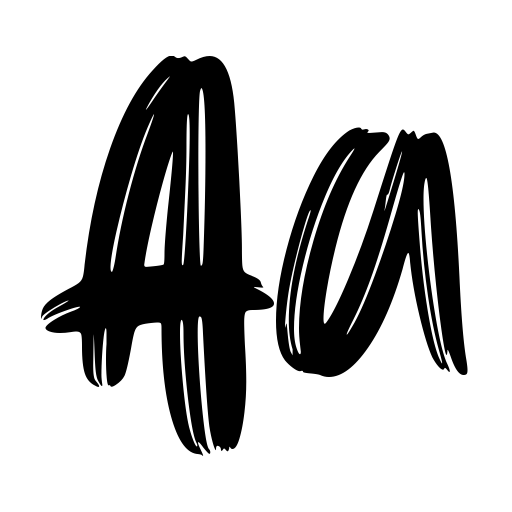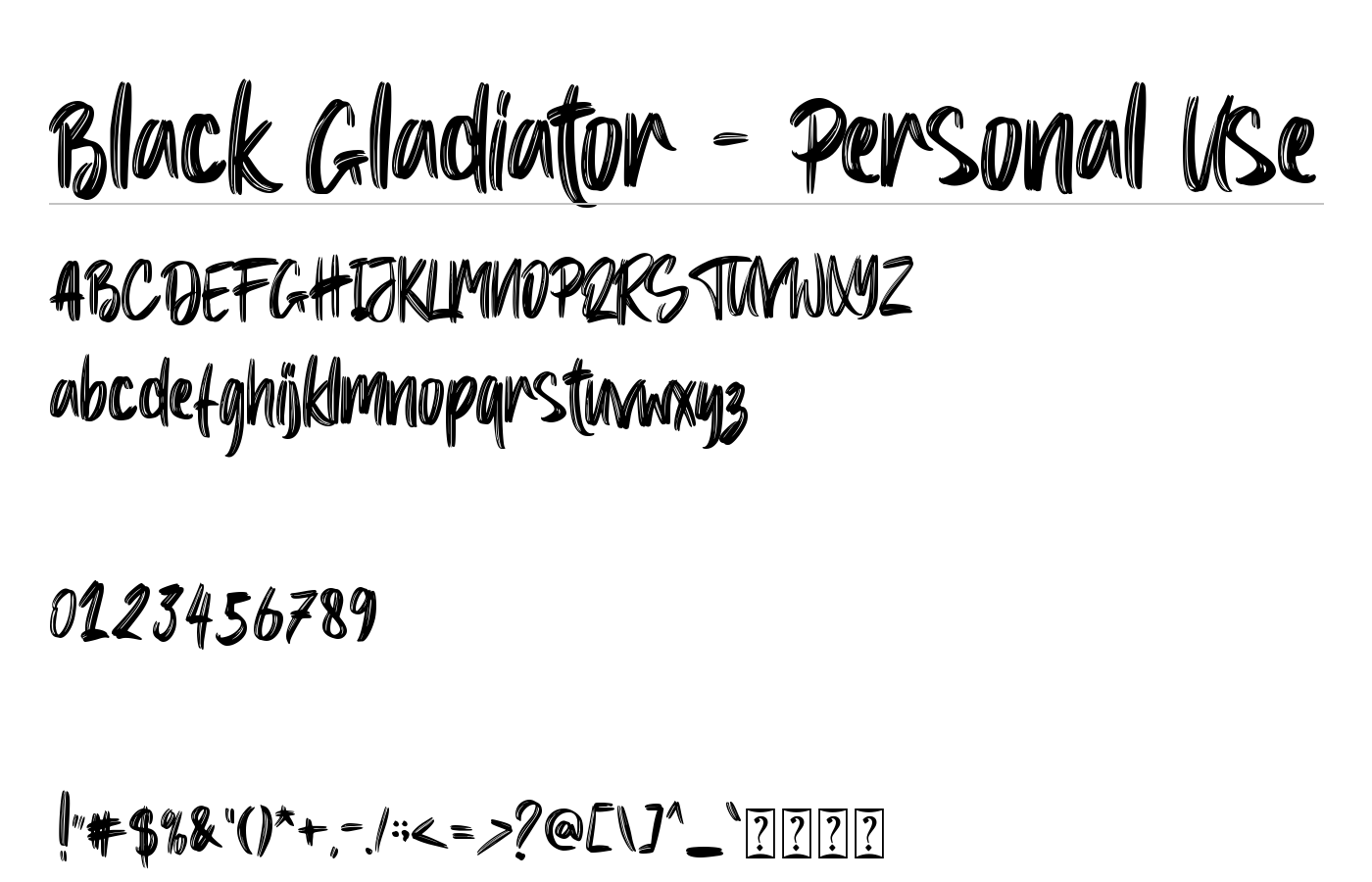
Black Gladiator is a bold, hand-drawn script font with a playful and energetic personality, featuring tall, slightly condensed letterforms and a textured, brush-like stroke. Its casual style and dynamic flow make it ideal for creative projects, posters, branding with a youthful or artistic vibe, and any design needing a bold, handcrafted touch that feels both lively and informal.
Black Gladiator - Personal Use Font
About Black Gladiator - Personal Use Font
| Font family | Black Gladiator - Personal Use Font |